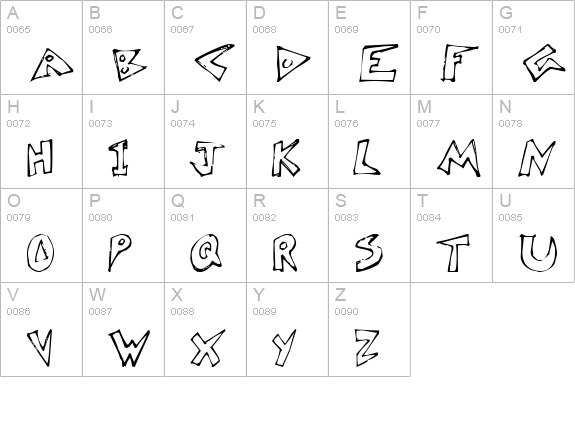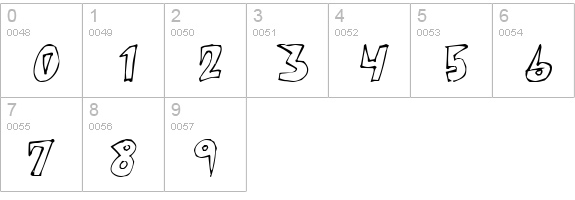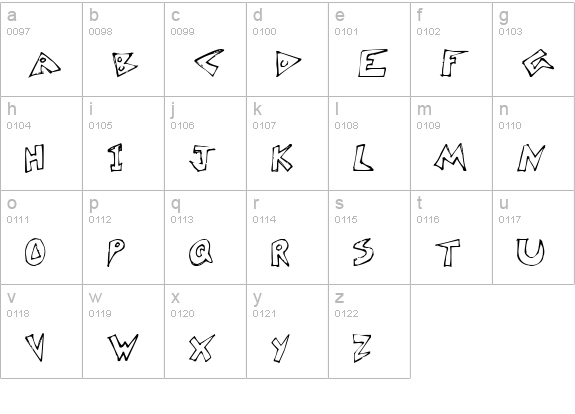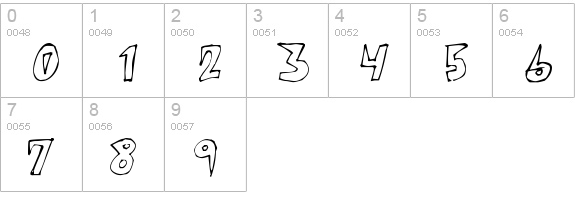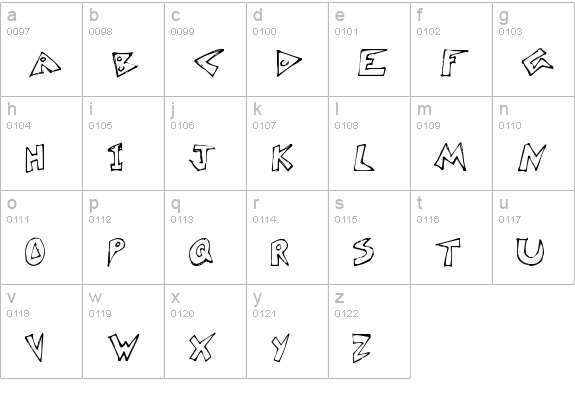
4amDiner Font Details
Introducing 4amDiner font – a whimsical and playful typeface that brings a touch of retro charm to your designs. Inspired by the neon-lit diners of the 1950s, this font exudes a sense of nostalgia and fun. With its quirky curves and bold lines, 4amDiner is perfect for adding a unique flair to posters, invitations, and more. What sets 4amDiner font apart is not only its eye-catching style but also its versatility. Whether you're working on a vintage-inspired project or looking to inject some personality into your designs, this font is sure to make a statement. Best of all, 4amDiner font is completely free to download at FontsMarket.com! So go ahead and give your creations a retro twist with this charming typeface. Let your creativity shine with 4amDiner font today.